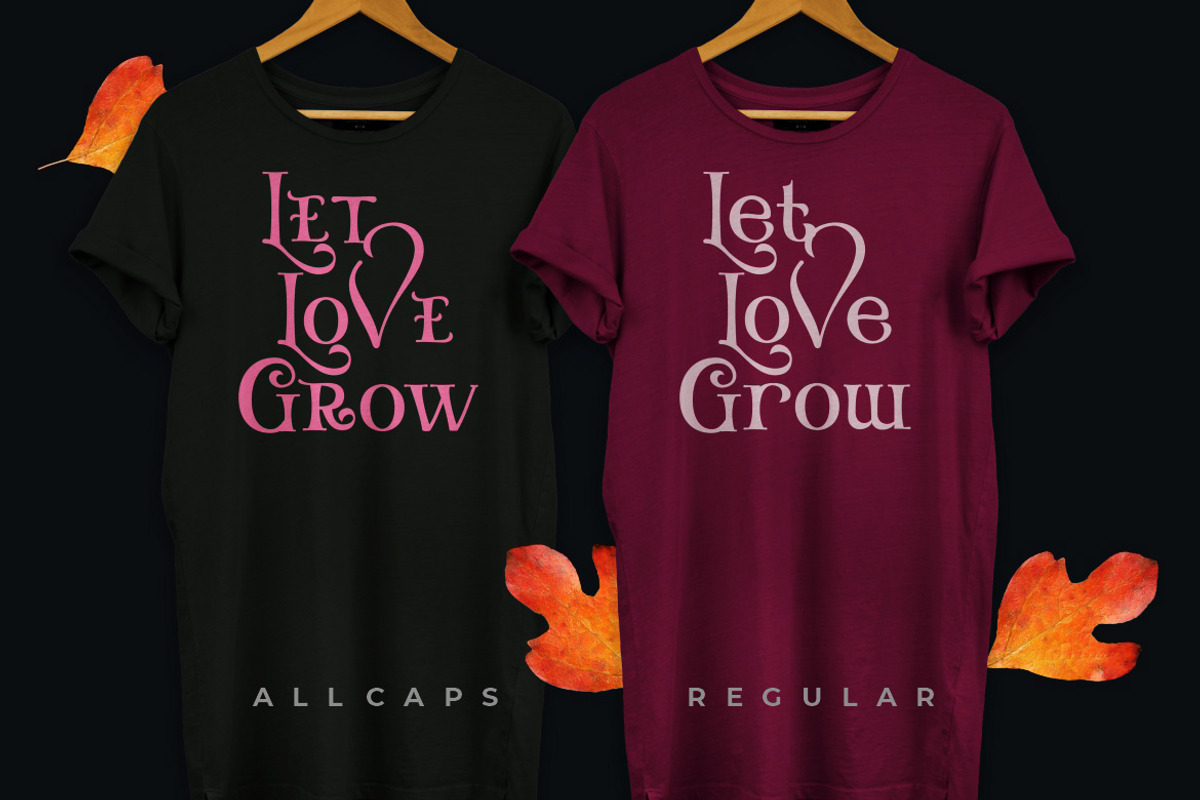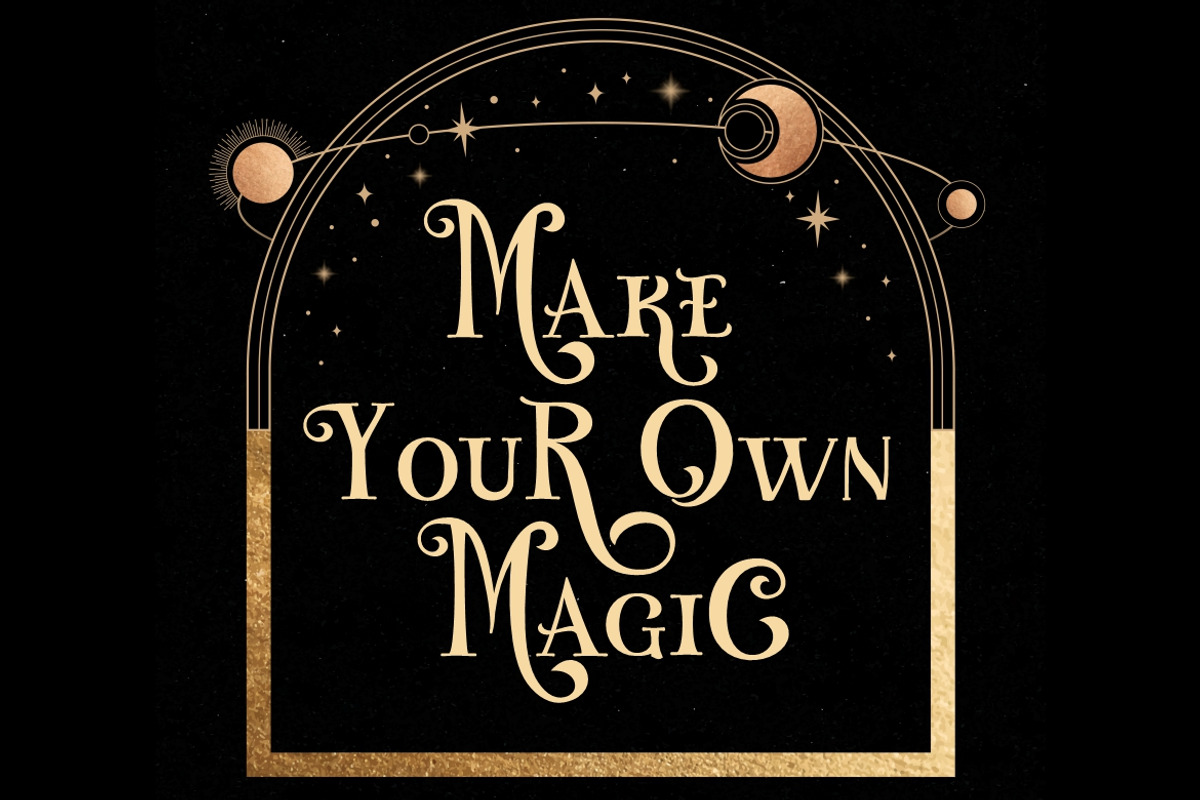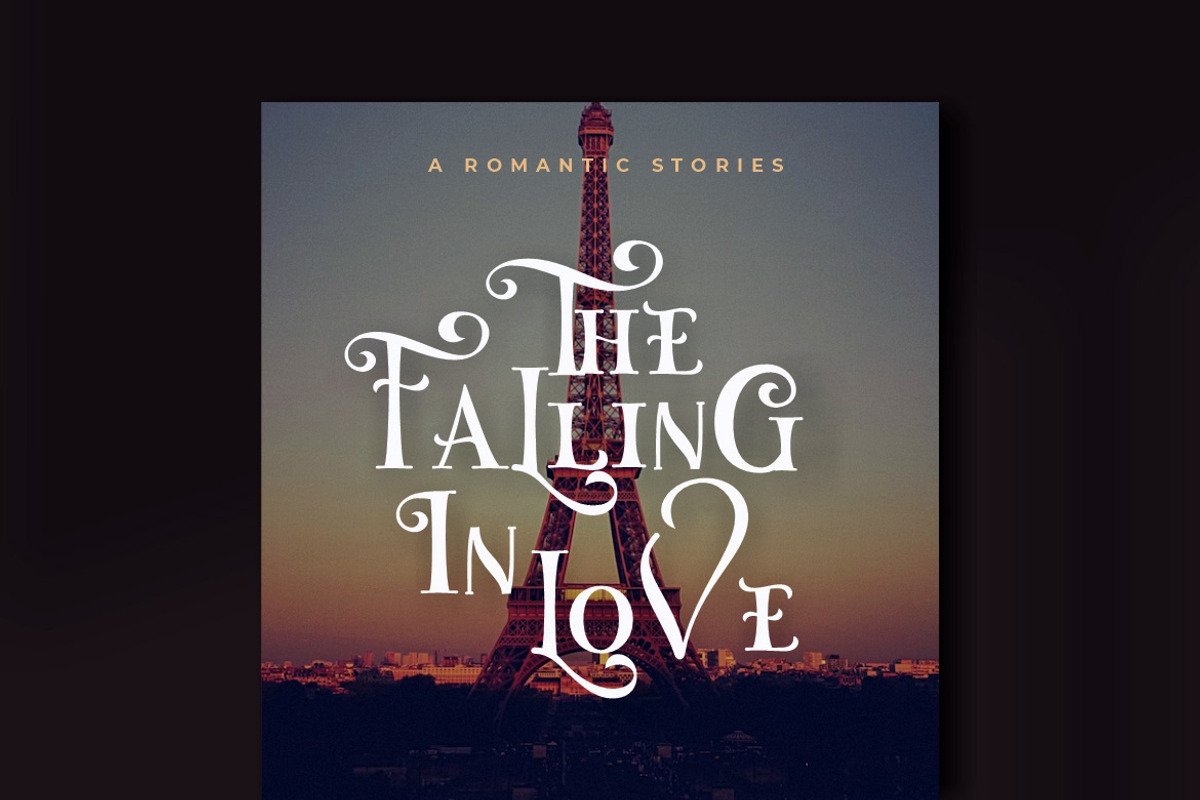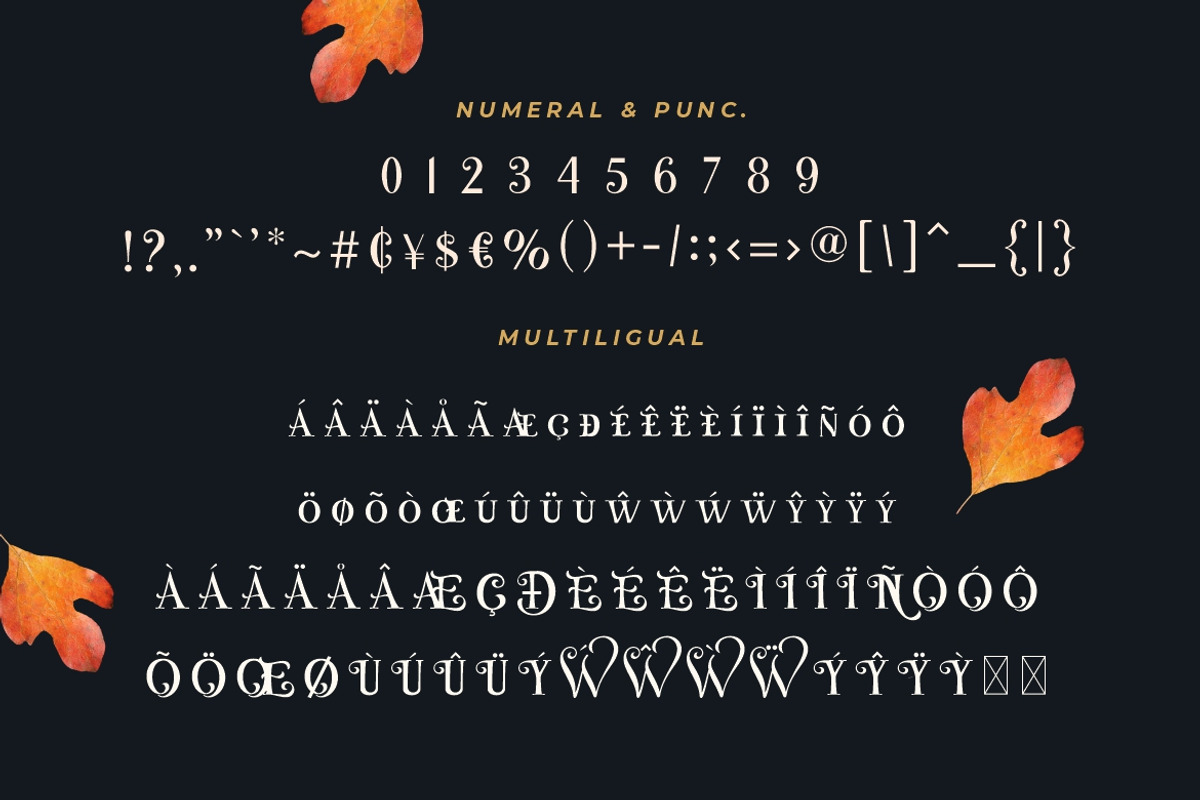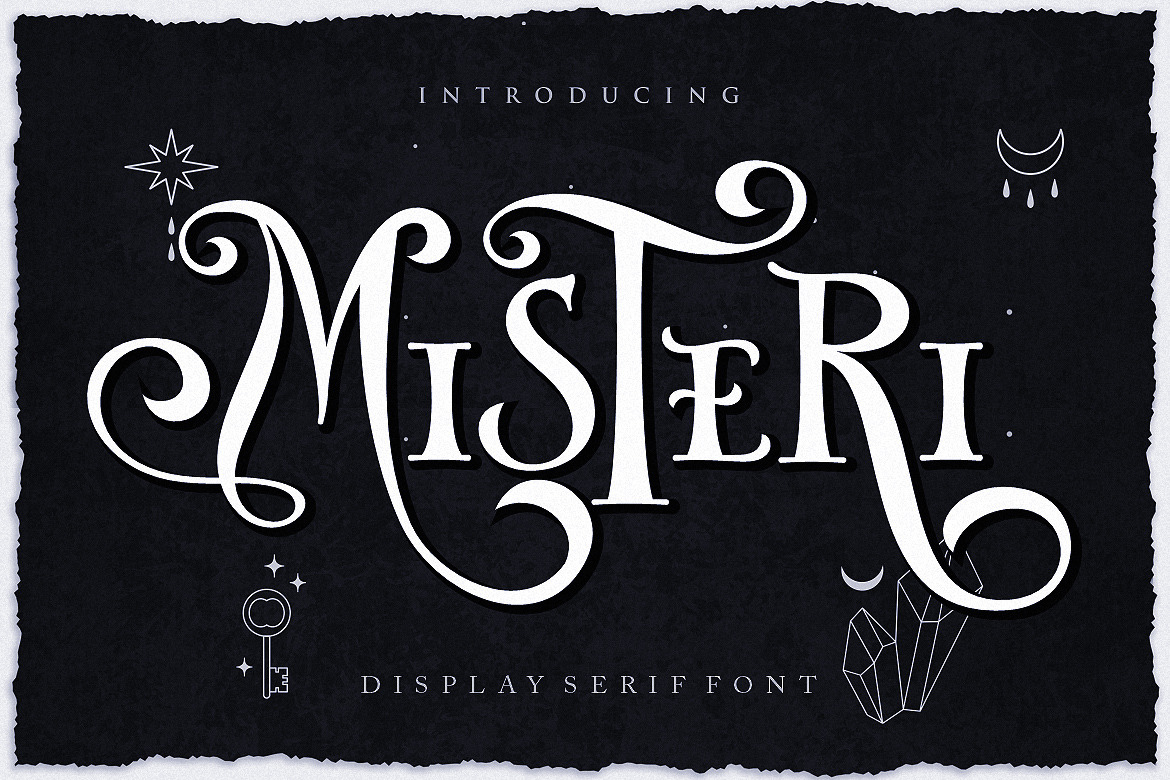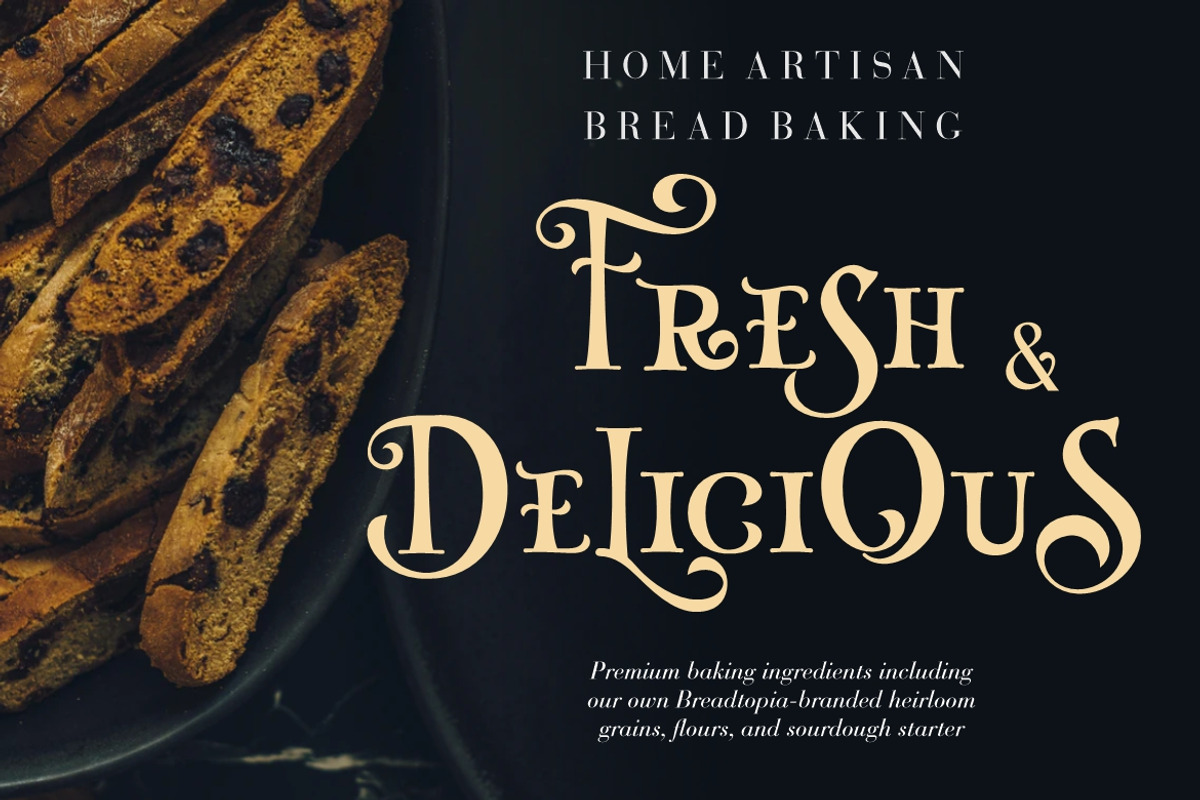
Misteri - Whimsical Font!
Misteri is a gorgeous and elegant display font with an incredibly delicate feel. It features gorgeous and mysterious swashes and ligatures that make this script incredibly versatile. Whether you’re looking for fonts for Instagram, calligraphy scripts, or magic- or wizard-themed projects, Misteri will turn any creative idea into a true piece of art. You can combine uppercase and lowercase letters to get different characters. You can also use the Character Map on Windows and the Font Book on Mac to see all the characters in the font, to use it just copy - paste it into the canvas in the design software you use. This typeface comes in all uppercase ( no lowercase ), with punctuation, symbols, numerals, ligature and support multilingual.
- All Uppercase ( No Lowercase )